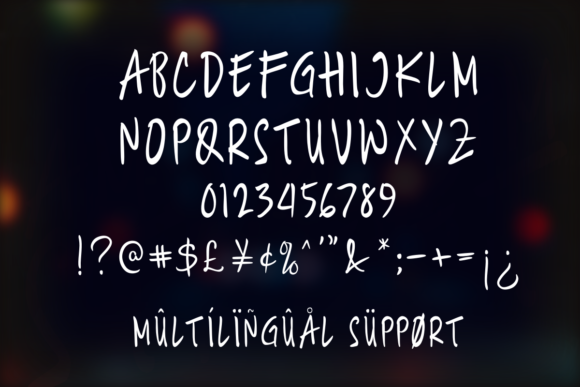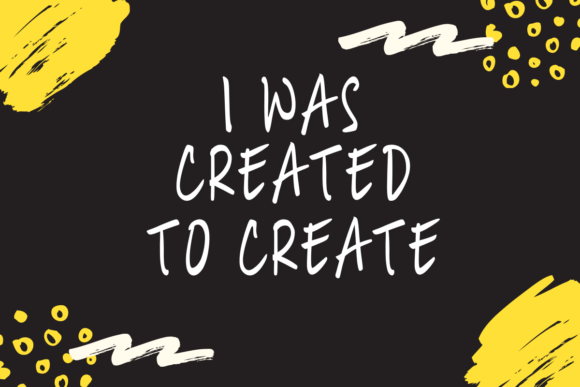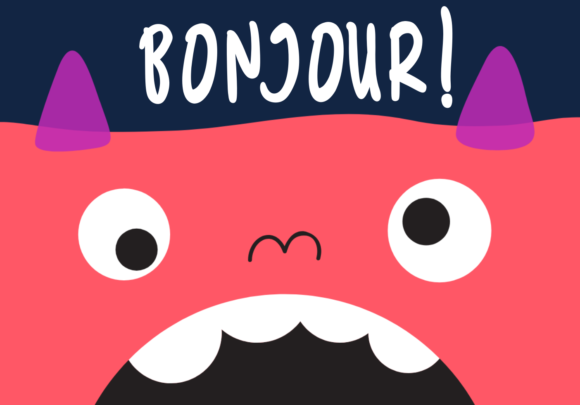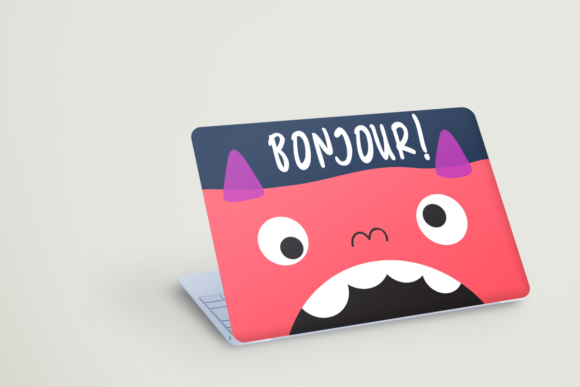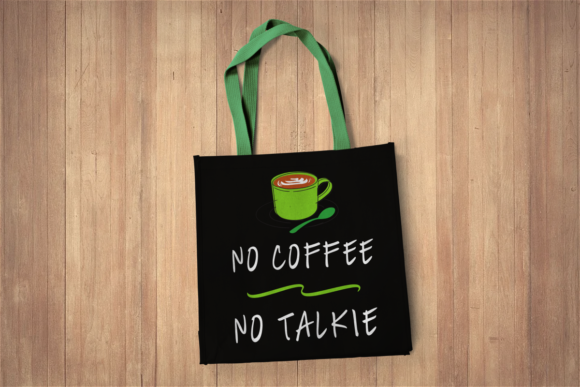
Discover the Charm of Amsterdam Street Font: A Timeless Display Font
Are you a designer or crafter looking for a font that can add a touch of simplicity and relaxation to your designs? Look no further than the Amsterdam Street Font. This beautiful display font is perfect for creating spectacular designs that are sure to capture the attention of your audience. In this article, we’ll take a closer look at the Amsterdam Street Font, its unique features, and how you can use it to elevate your designs.
What is Amsterdam Street Font?
Amsterdam Street Font is a simple and relaxed display font that is designed to bring a sense of timelessness to your designs. Its incredibly distinct style is sure to fall in love with, and its versatility makes it perfect for a wide range of design projects. Whether you’re creating a logo, poster, or social media graphic, Amsterdam Street Font is the perfect choice.
Unique Features of Amsterdam Street Font
So, what makes Amsterdam Street Font so special? Here are just a few of its unique features:
- Simple and Relaxed Design: Amsterdam Street Font has a simple and relaxed design that makes it perfect for creating designs that are easy to read and understand.
- Timeless Style: The font has a timeless style that is sure to remain popular for years to come.
- Distinctive Lettering: Amsterdam Street Font has a distinctive lettering style that sets it apart from other fonts.
- Versatile: The font is versatile and can be used for a wide range of design projects.
How to Use Amsterdam Street Font
Amsterdam Street Font is easy to use and can be incorporated into your designs in a variety of ways. Here are a few ideas to get you started:
- Logos and Branding: Use Amsterdam Street Font to create a logo or brand identity that is simple, yet effective.
- Posters and Flyers: The font is perfect for creating eye-catching posters and flyers that are sure to grab attention.
- Social Media Graphics: Use Amsterdam Street Font to create social media graphics that are easy to read and understand.
- Packaging Design: The font can be used for packaging design, adding a touch of simplicity and elegance to your products.
Benefits of Using Amsterdam Street Font
There are many benefits to using Amsterdam Street Font in your designs. Here are just a few:
- Easily Readable: The font is easy to read, even at small sizes.
- Highly Versatile: Amsterdam Street Font can be used for a wide range of design projects.
- Unique Style: The font has a unique style that sets it apart from other fonts.
- Time-Saving: Using a pre-designed font like Amsterdam Street Font can save you time and effort in your design projects.
Tips for Using Amsterdam Street Font
Here are a few tips for using Amsterdam Street Font in your designs:
- Use it Sparingly: While Amsterdam Street Font is a beautiful font, it’s best to use it sparingly to avoid overwhelming your design.
- Experiment with Colors: The font looks great in a variety of colors, so don’t be afraid to experiment and find the perfect color for your design.
- Pair it with Other Fonts: Amsterdam Street Font can be paired with other fonts to create a unique and interesting design.
Amsterdam Street Font is a beautiful and versatile display font that is perfect for designers and crafters looking to add a touch of simplicity and relaxation to their designs. With its timeless style and distinctive lettering, it’s sure to be a popular choice for years to come. Whether you’re creating a logo, poster, or social media graphic, Amsterdam Street Font is the perfect choice. So why wait? Download Amsterdam Street Font today and start creating spectacular designs!